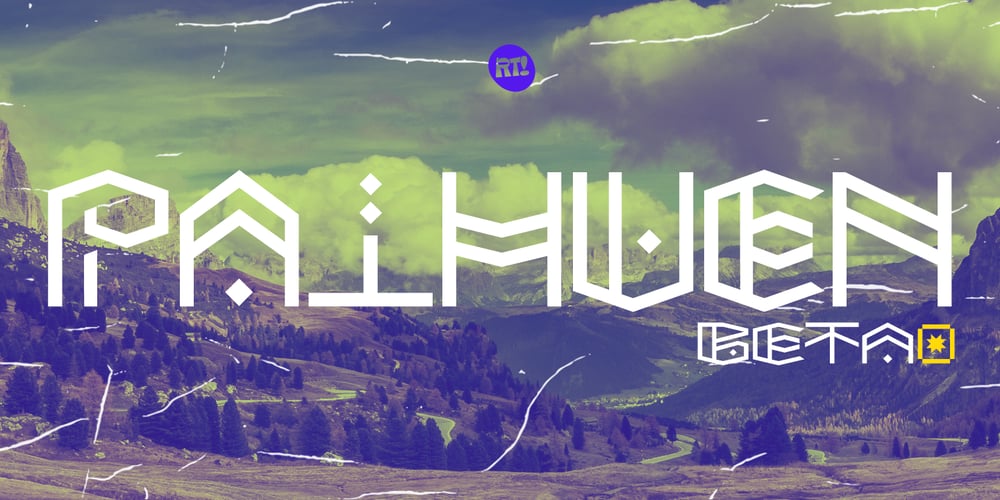
Paihuen beta Font Family was designed by Rodrigo Araya Salas, Franco Jonas Hernández and published by RodrigoTypo. Paihuen beta contains 6 styles and family package options. Paihuen Beta A Typography that plays with the Rupestre concept, contains 6 variants that can be combined with each other to make more powerful and entertaining titles.